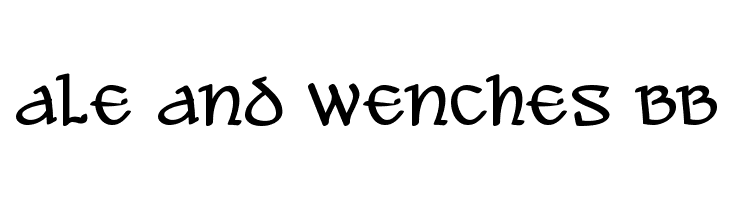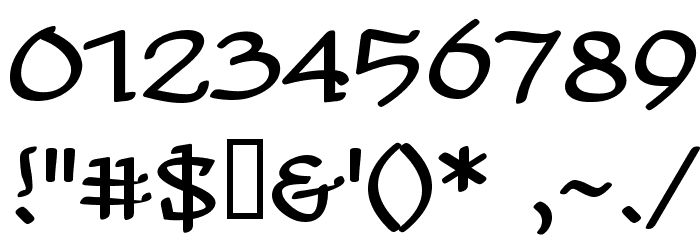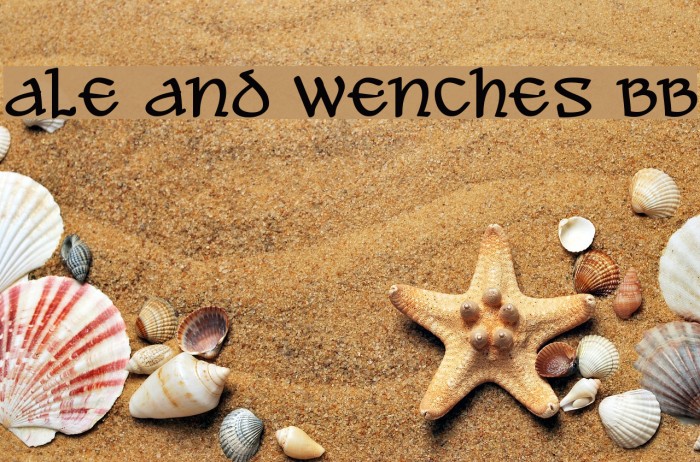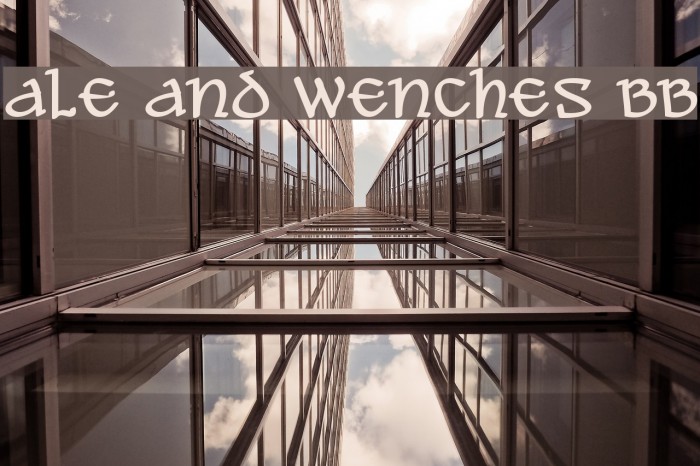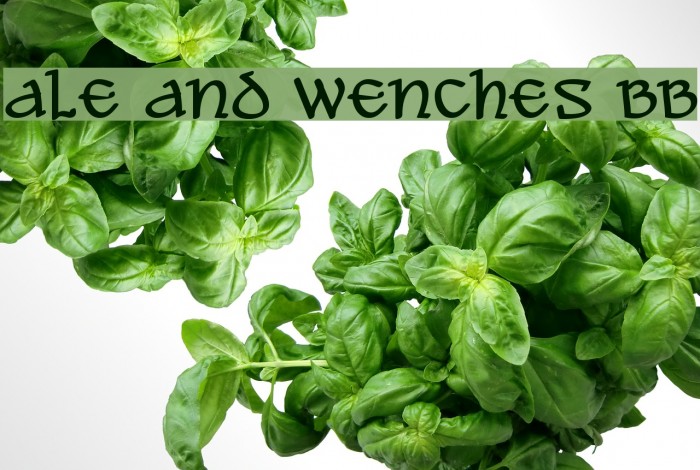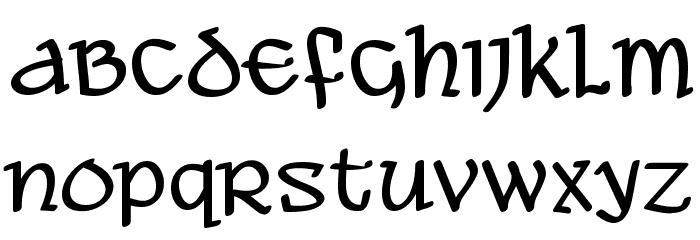
Ale and Wenches BB Font
Ale and Wenches BB Description
This font exudes a playful and whimsical charm, reminiscent of medieval script with a modern twist. The characters are slightly slanted, giving a sense of movement and liveliness. Each letter features unique curves and flourishes, adding to its decorative appeal. The uppercase letters are bold and prominent, while the lowercase letters maintain a consistent style with a slightly narrower form. Numbers are clear and distinct, matching the overall aesthetic. Special characters are creatively designed, enhancing the font's versatility for various uses.
A whimsical, medieval-inspired font with playful curves and decorative flair from Uncategorized fonts.
- Proposed Projects: Ideal for themed events, fantasy book covers, playful branding, and creative invitations.
- Use Case: Headlines, Logos, Invitations